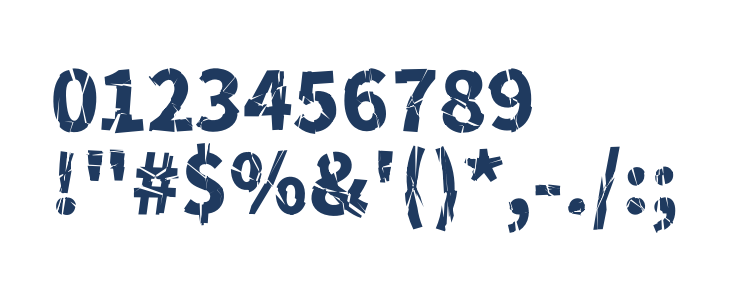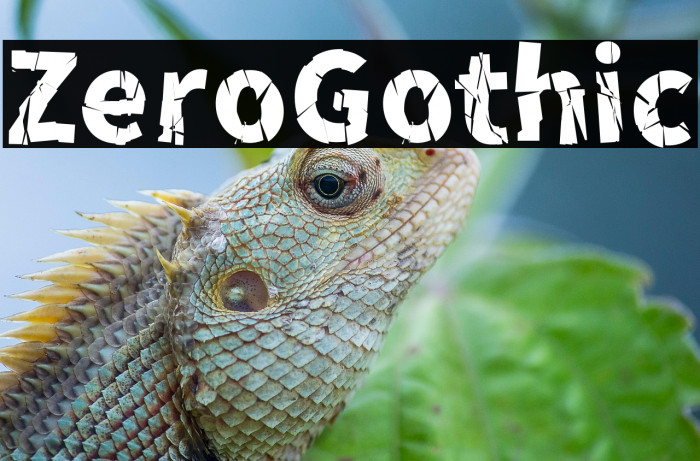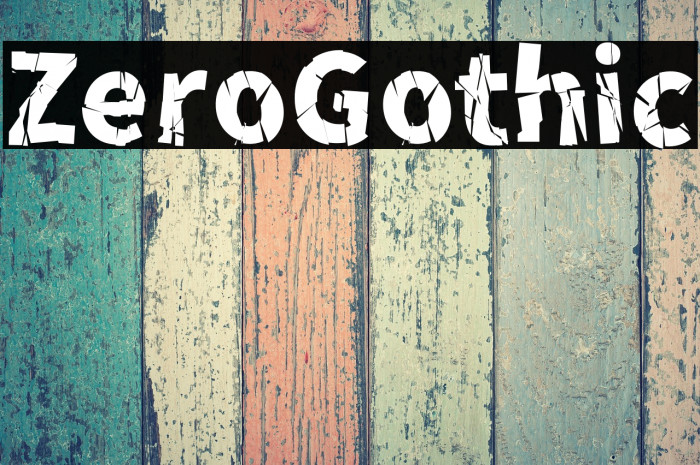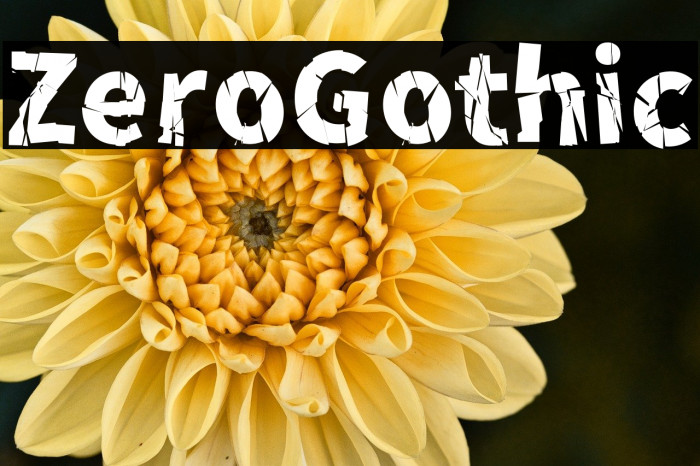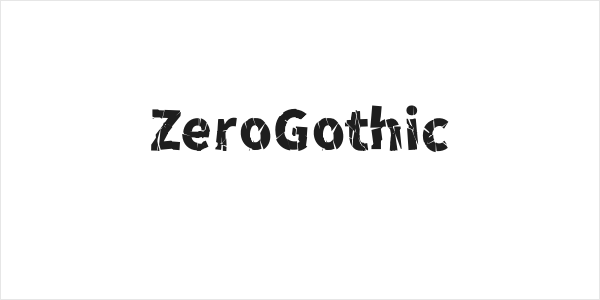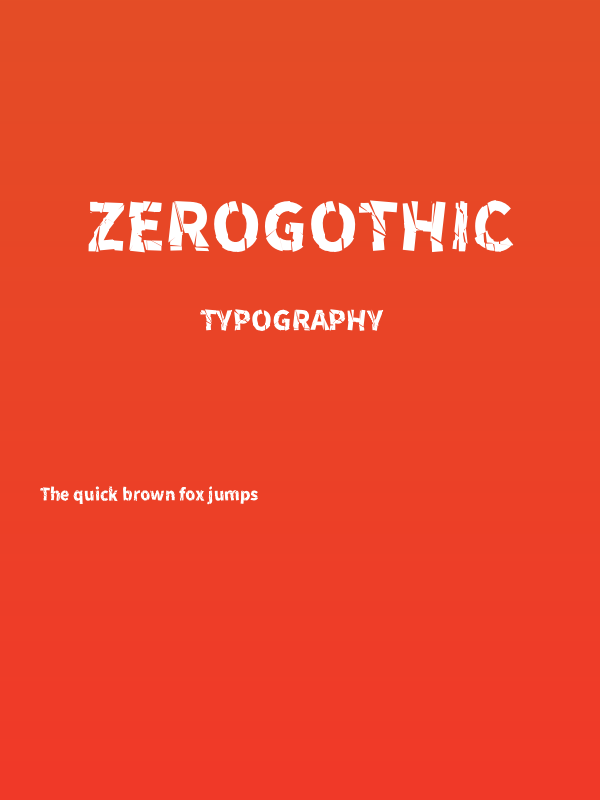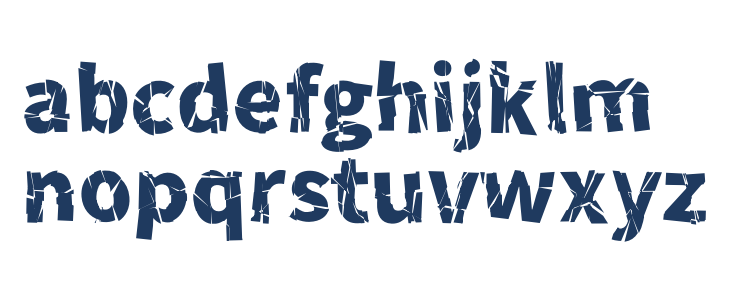
ZeroGothic Font
ZeroGothic Description
This font features a bold, distressed style with a unique, fragmented appearance. Each character appears as if it has been shattered or cracked, giving it a rugged, edgy look. The uppercase and lowercase letters maintain a consistent weight, contributing to a cohesive design. The numerals and special characters follow the same distressed pattern, ensuring uniformity across all glyphs. This font's distinctive style makes it stand out, ideal for projects that require a strong visual impact. Its boldness and irregular shapes create a sense of movement and energy, making it suitable for creative and unconventional designs.
| Overall Style | Modern, Edgy |
| Proposed Projects | Ideal for album covers, posters, streetwear branding, and edgy graphic designs. |